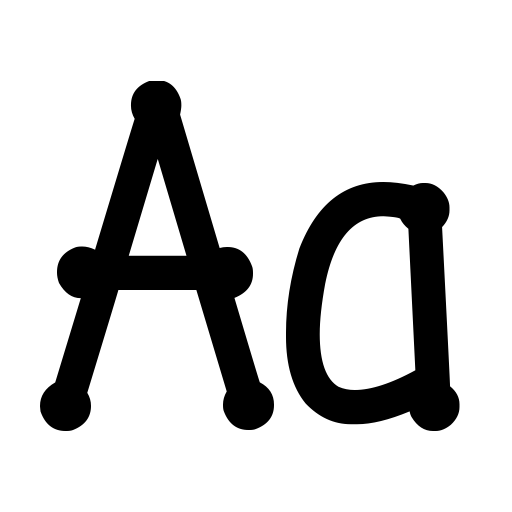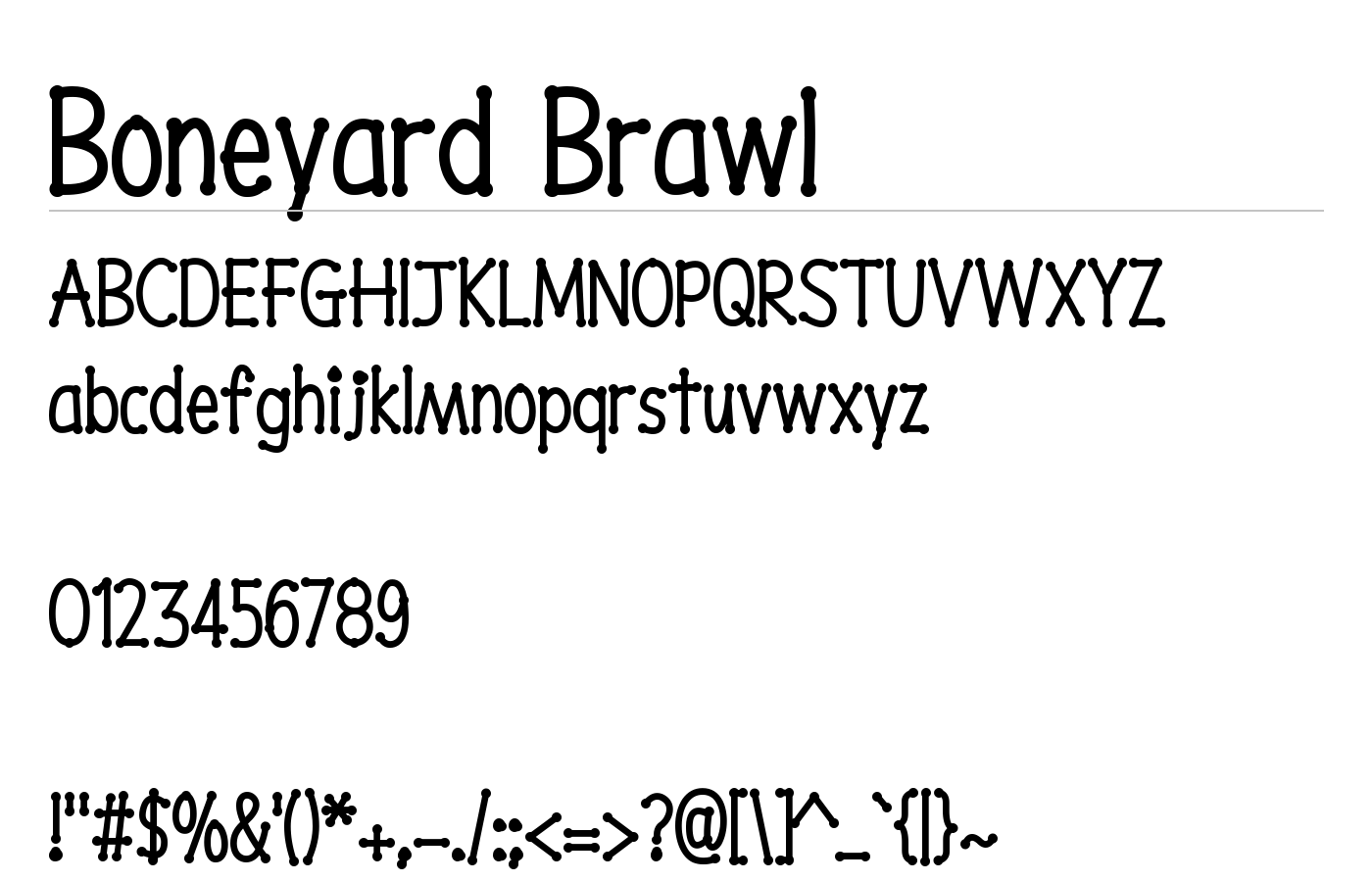
Boneyard Brawl is a whimsical and playful serif font with a hand-drawn, slightly quirky style. Its upright, narrow letterforms feature rounded terminals and irregular edges that give it a friendly, informal feel, making it ideal for creative and casual branding, children’s materials, or fun posters. This font works best in headlines and logos where a distinctive and approachable personality is desired.
Boneyard Brawl Font
About Boneyard Brawl Font